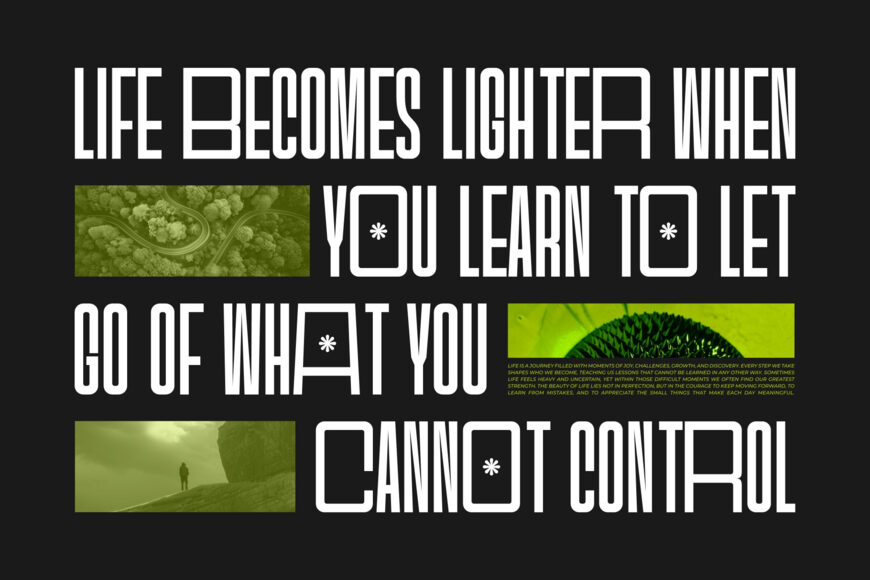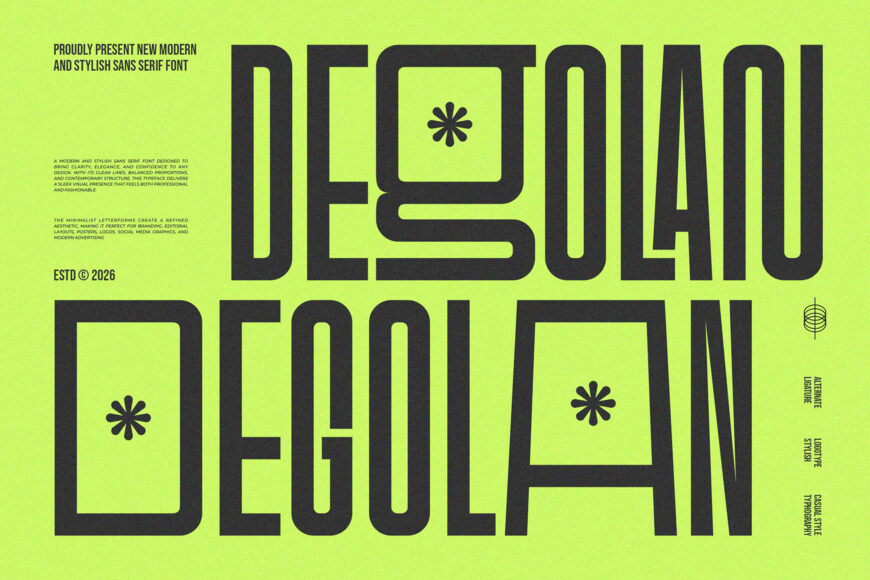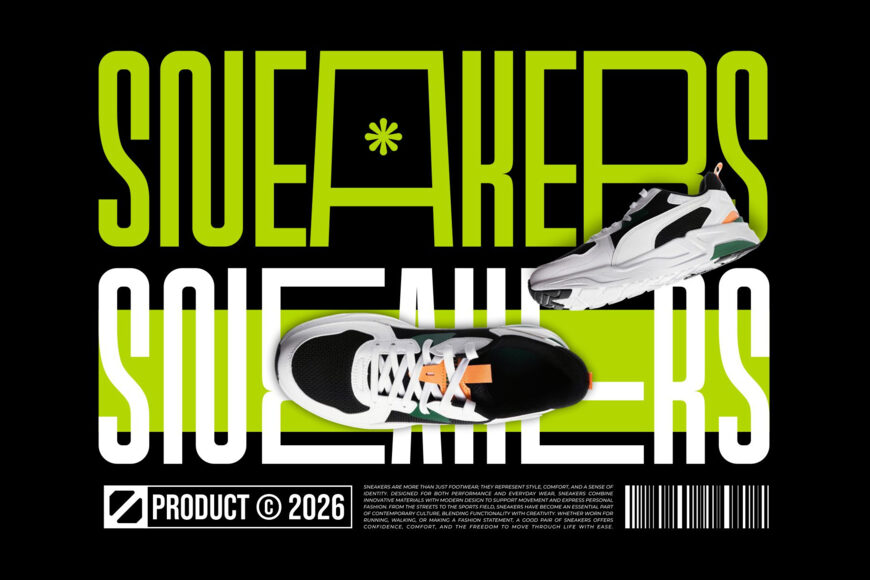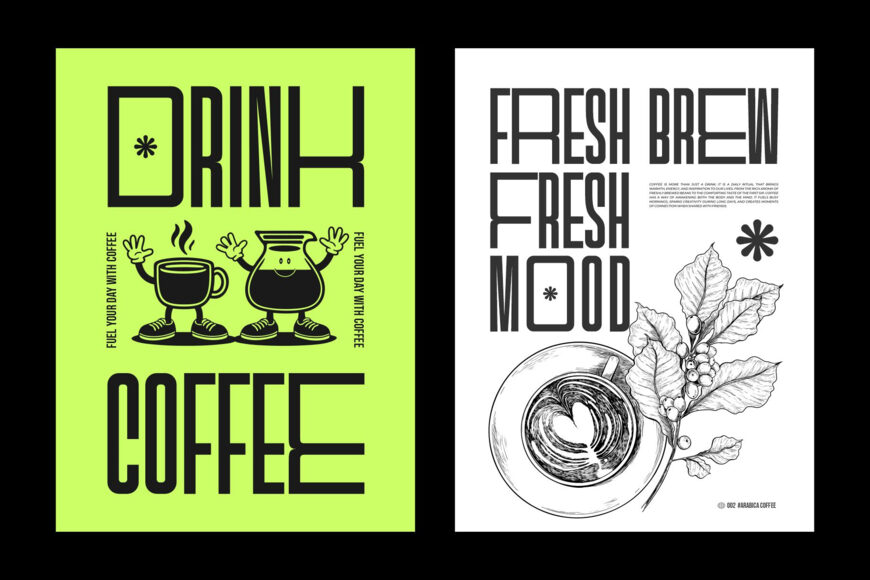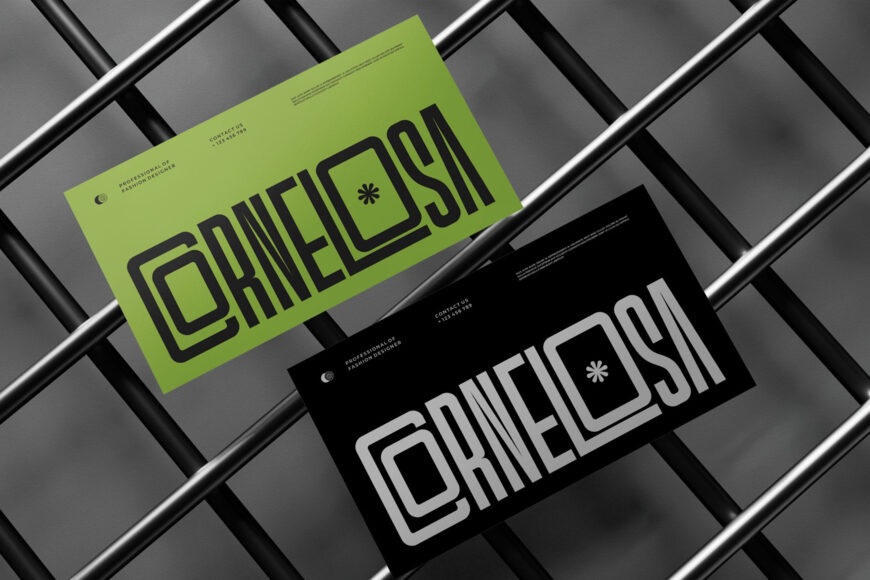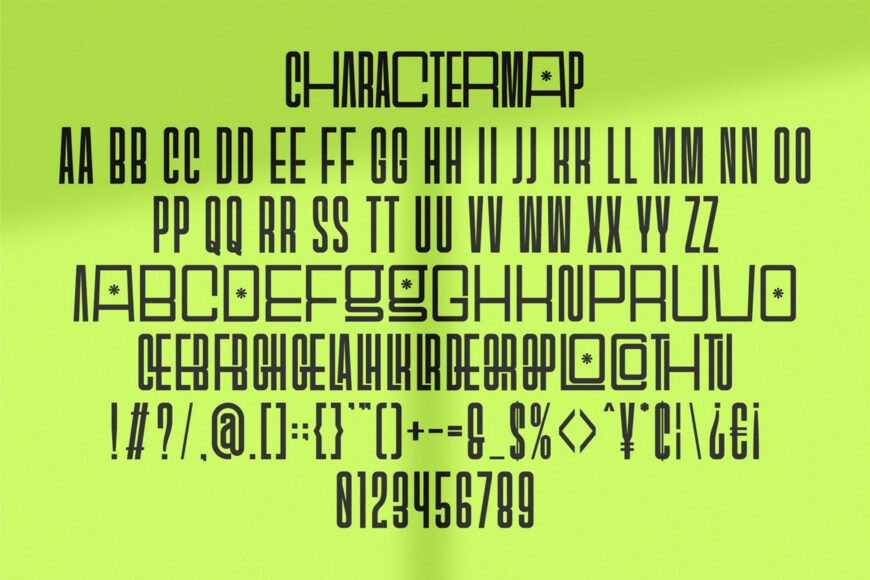
Degolan Font
Introducing Degolan, a tall, modern sans-serif typeface with a stylish, contemporary feel. Its distinctive letterforms give it a unique personality, making it an excellent choice for invitation designs, company logos, movie titles, business cards, book covers, brand identities, and many other creative projects.
Designed by: Ermedia Studio